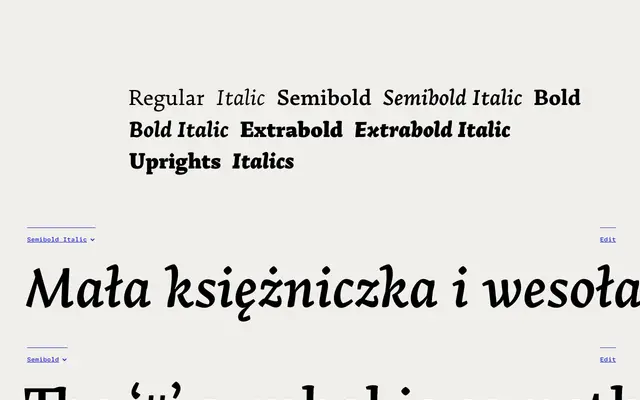
Arek Latin
Rosetta · Khajag Apelian · 2012
A humanist serif by Khajag Apelian, originally conceived for school textbooks, with angular kinetic details that hold attention across both text and display sizes.
Designed by Khajag Apelian and released in 2012, Arek was conceived for Armenian and Latin schoolbooks, with open proportions and restrained letterforms that remain readable at small sizes. Eight styles across four weights with matching italics cover the full range of editorial typesetting, supported by a thorough OpenType feature set including ligatures, fractions, multiple numeral styles and contextual alternates. The family won an ATypI Letter.2 award in 2011 and was named among Typographica's best typefaces of 2013.
Arek combines restrained letterforms with kinetic, angular details and a perky italic, placing it firmly in the humanist serif tradition designed for text and editorial use.